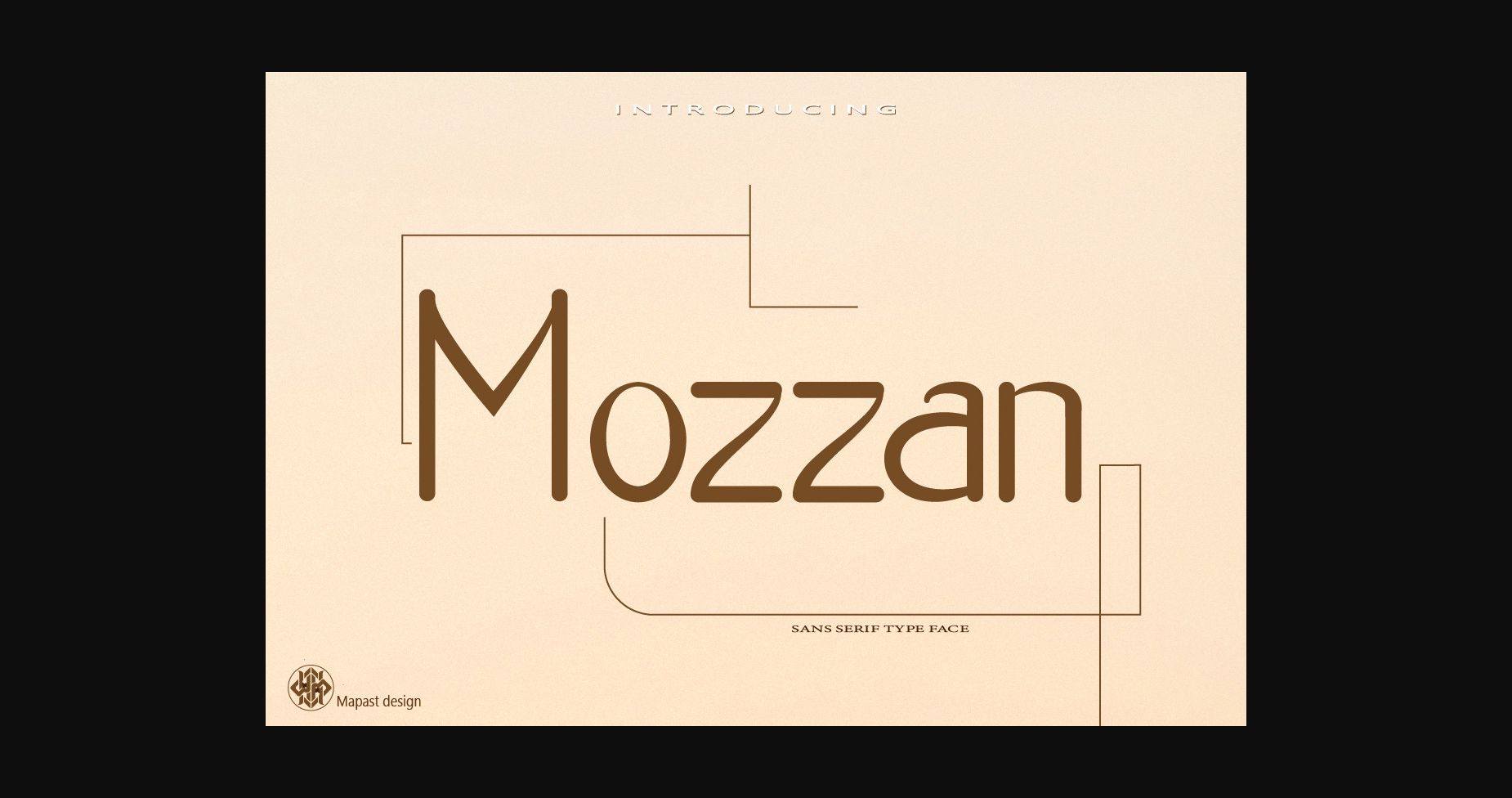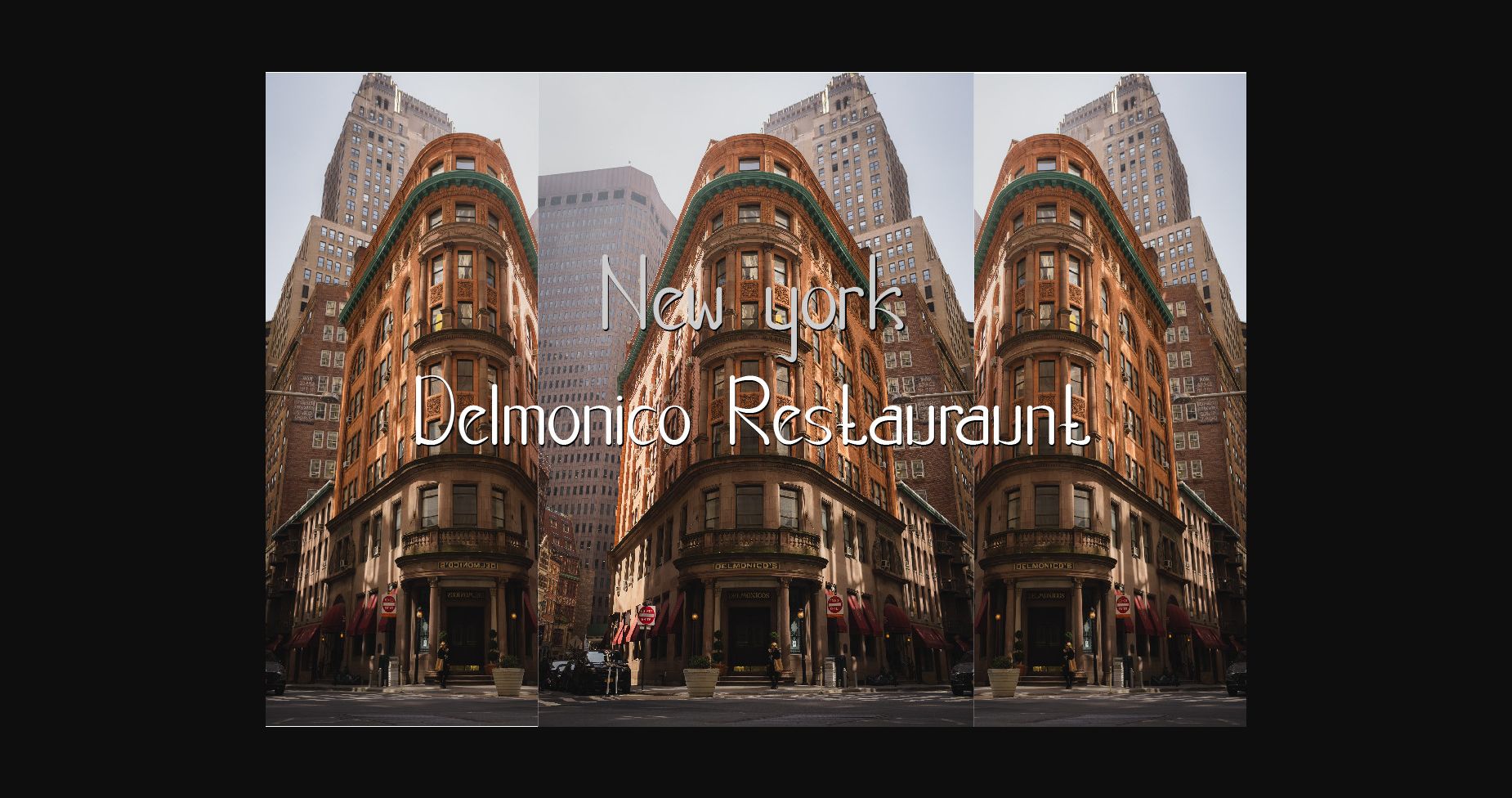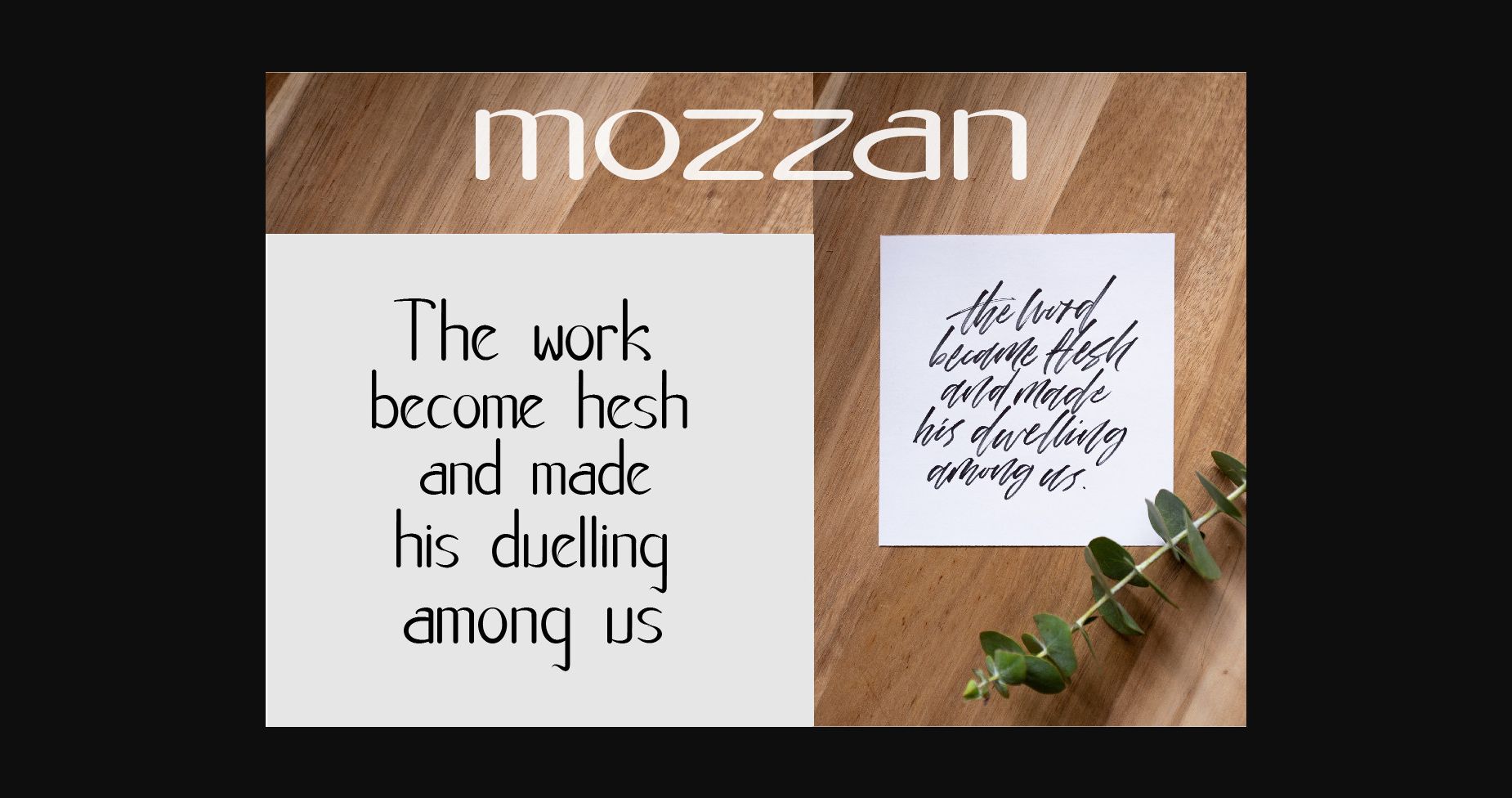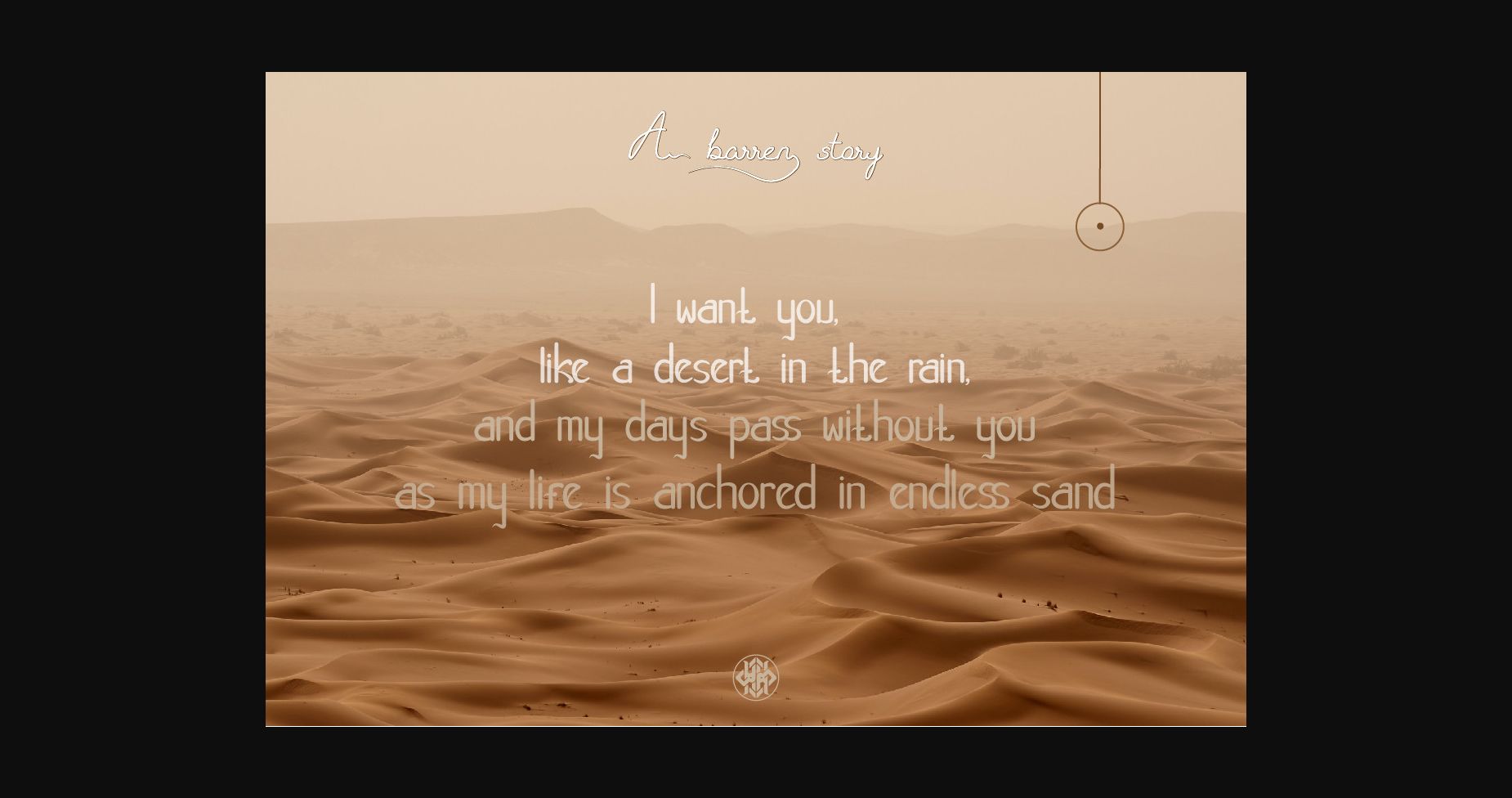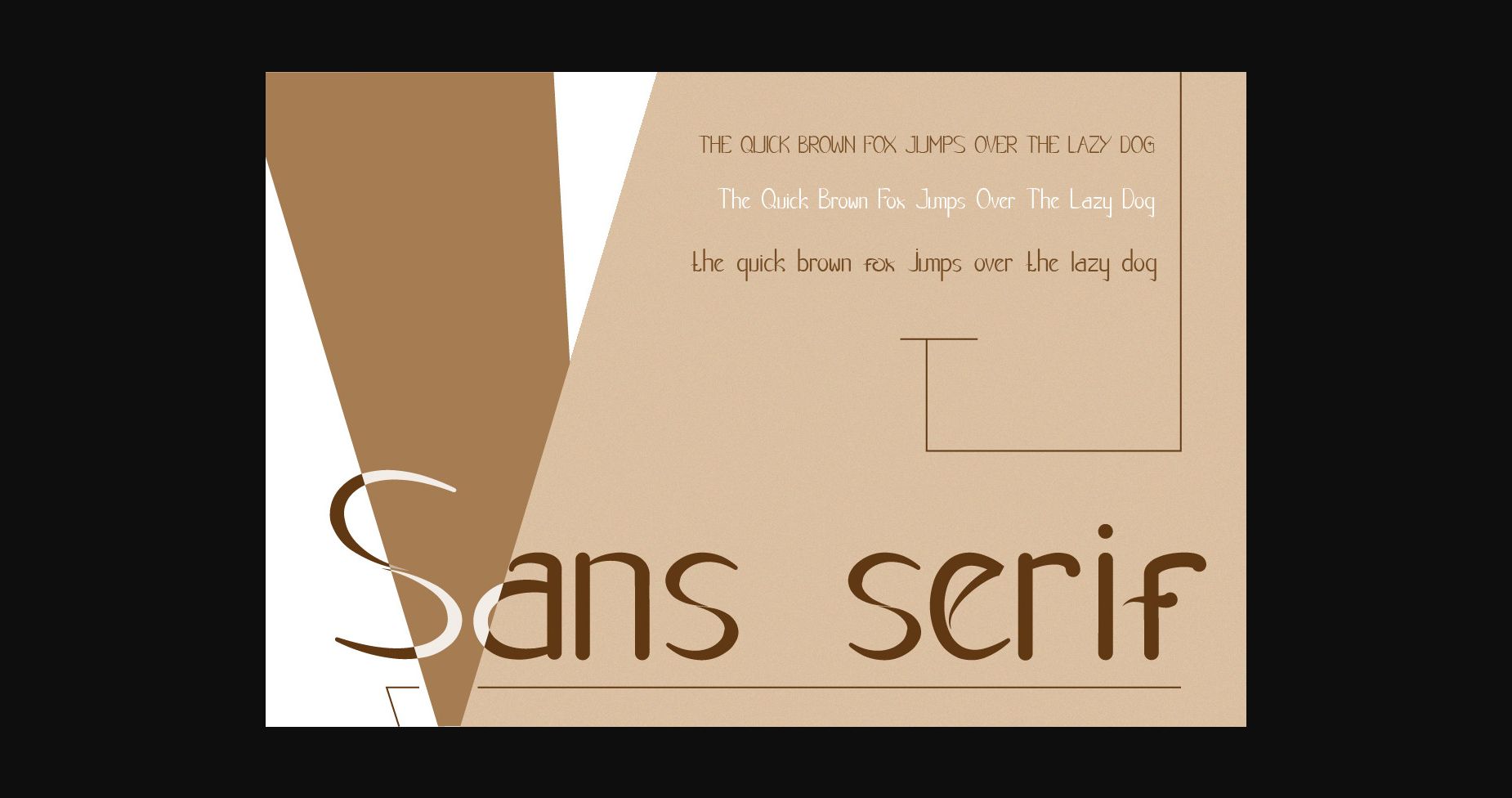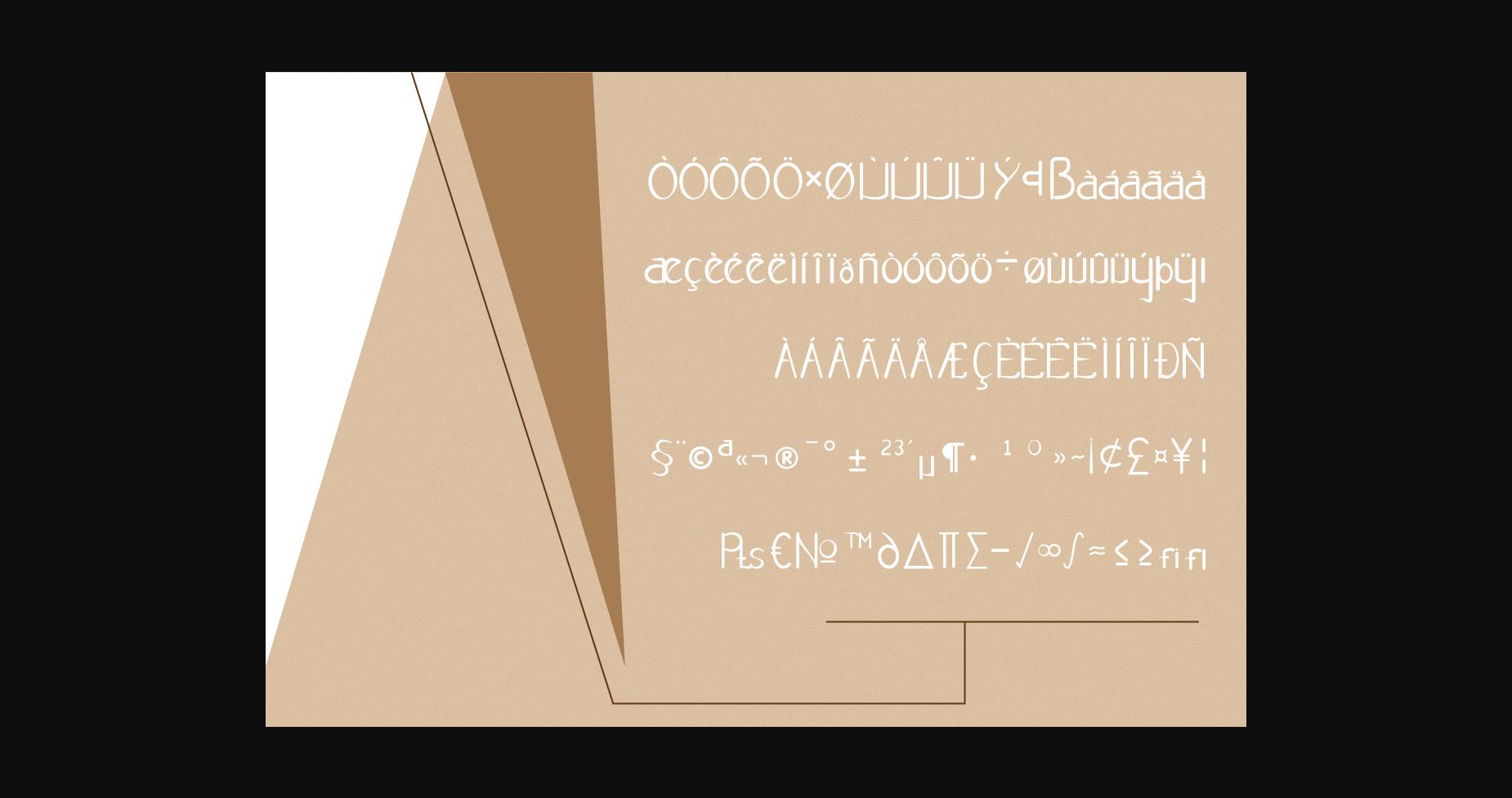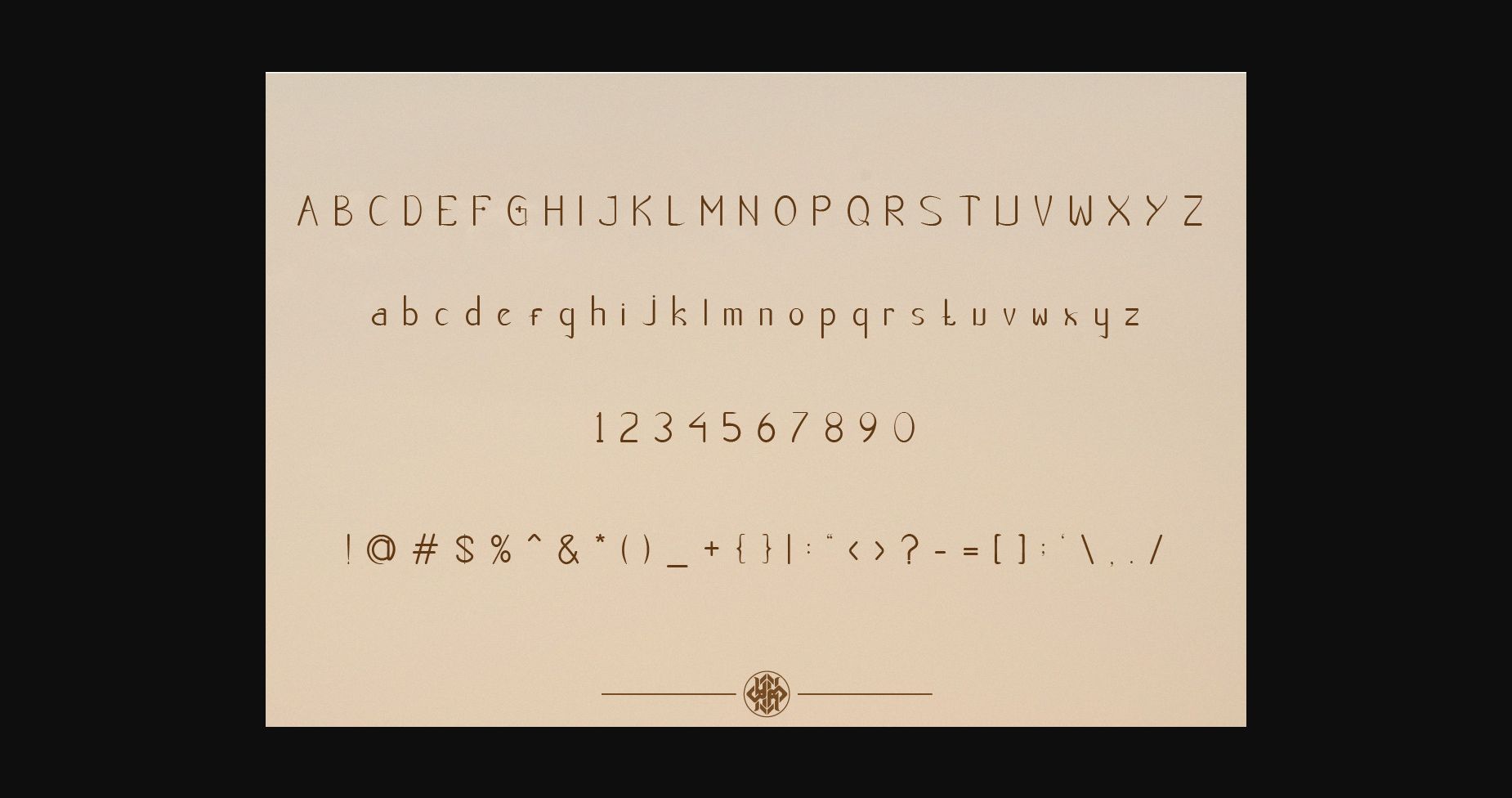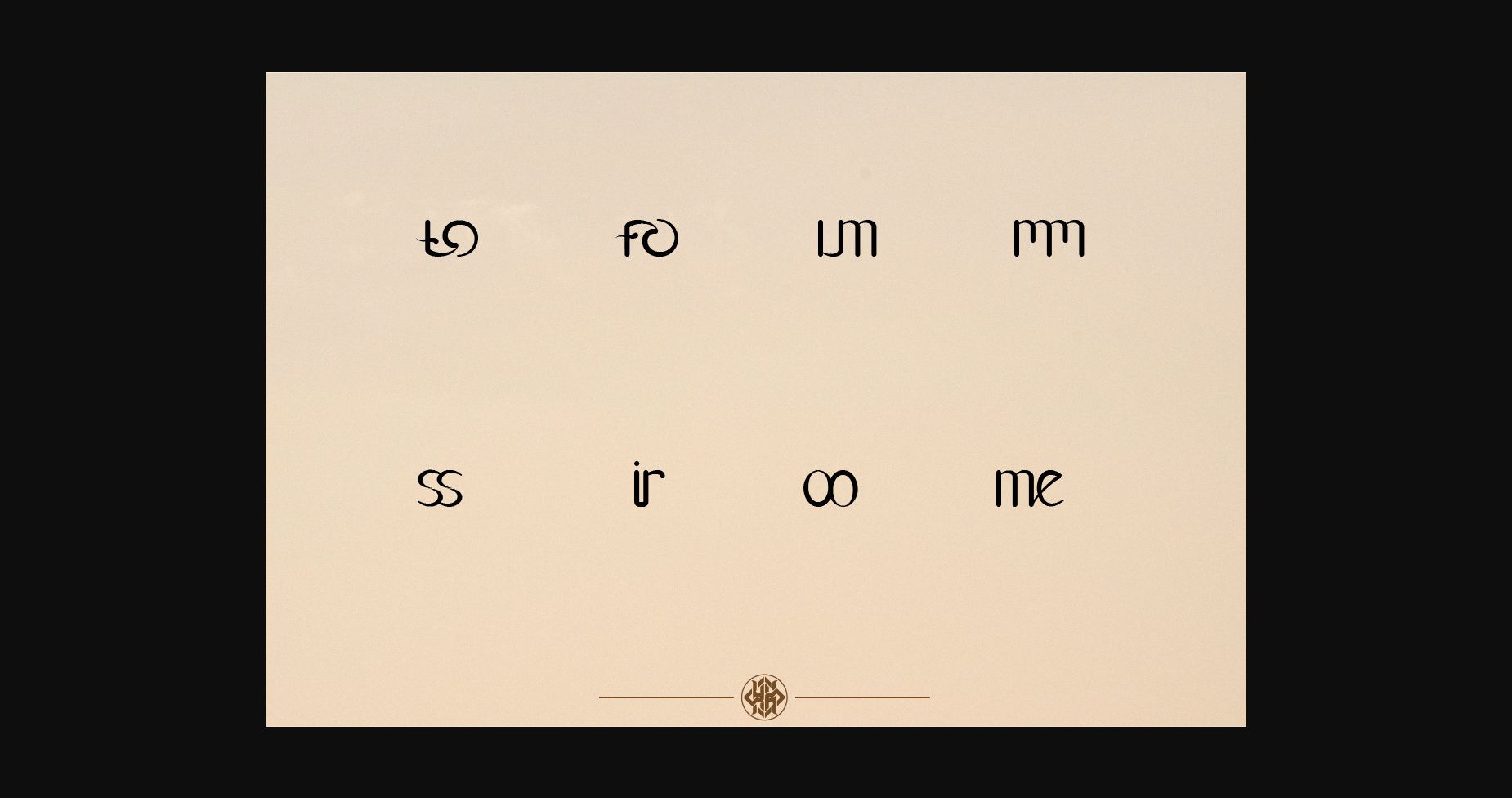
HomeSans Serif FontsMozzan Font Sans Serif Fonts Mozzan Font FacebookXPinterestWhatsApp 1 of 11 ... Mozzan Font Poster 2... Mozzan Font Poster 3... Mozzan Font Poster 4... Mozzan Font Poster 5... Mozzan Font Poster 6... Mozzan Font Poster 7... Mozzan Font Poster 8... Mozzan Font Poster 9... Mozzan Font Poster 10... Mozzan Font Poster 11... About Mozzan Font Mozzan is a distinct and thin sans serif font. It can easily be matched to an incredibly large set of projects, so add it to your creative ideas and notice how it makes them stand out! DOWNLOAD NOW People also explored Hey Honey Font Lovely – Love Handwritten Font Routhers Font FormPattern Color Three Love Font Snowflake Font Foliage Font Hello Honey Font Behind the Scenery Font 310 0 TagsMozzanMozzan Font Previous articleGatsbey FontNext articleNewtralica Font LEAVE A REPLY Cancel reply Comment: Please enter your comment! Name:* Please enter your name here Email:* You have entered an incorrect email address! Please enter your email address here Website: Save my name, email, and website in this browser for the next time I comment. Personal Use Free Rembank Personal Use Free Read more about this font Wallabys Junior Personal Use Free Read more about this font Wondery Personal Use Free Read more about this font Hunting Font Personal Use Free Read more about this font BLOG How to Install and Use Fonts on Windows, macOS, and Web Projects How to Install and Use Fonts on Windows, macOS, and Web Projects Fonts are a crucial part of design and branding. Whether you’re designing a... Free vs Paid Fonts: Why Investing in Premium Fonts Is Worth It To increase your work productivity, choose the most readable fonts. How to Cut Any Font on Cricut: Convert a Font to SVG (Free)